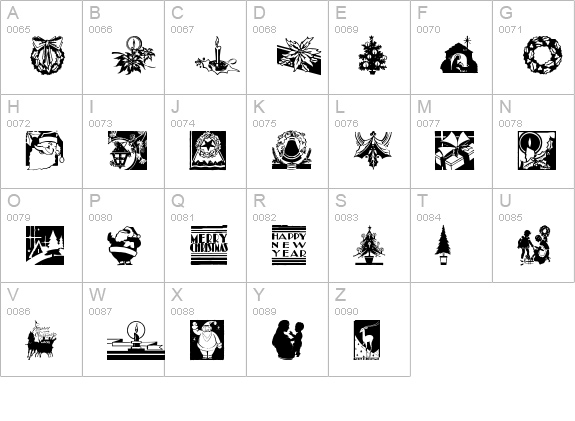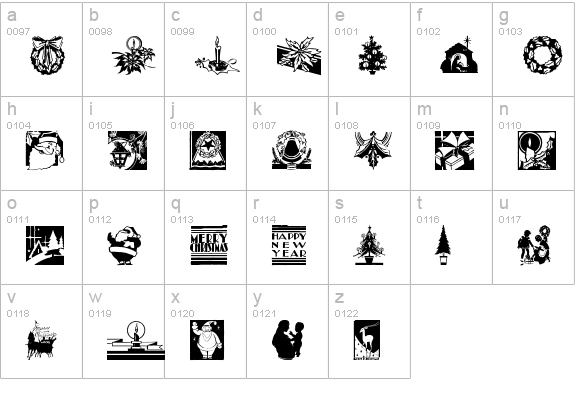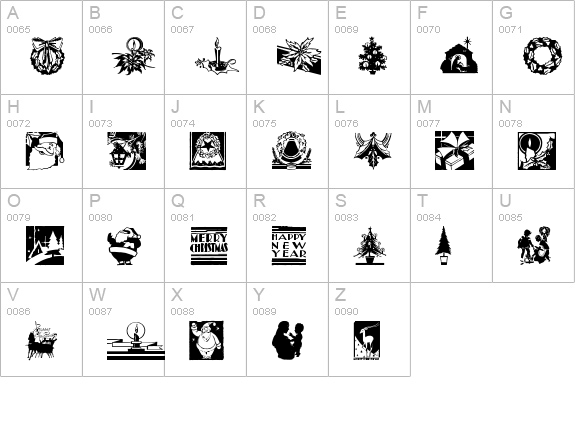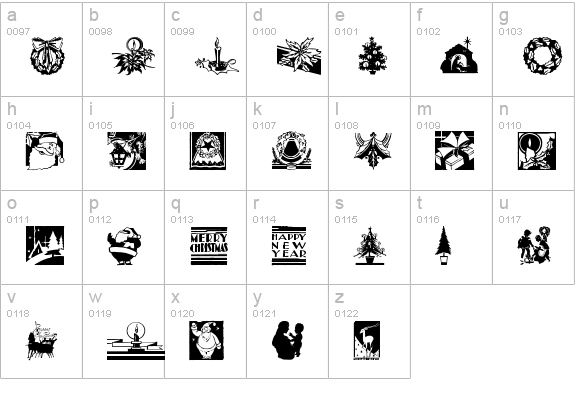
Cobb Shinn Christmas Cuts Font Details
Introducing the exquisite Cobb Shinn Christmas Cuts font, a whimsical and festive typeface perfect for all your holiday design needs. This unique font features charming Christmas-themed illustrations incorporated into each letter, adding a touch of cheer and nostalgia to your projects. The intricate details and playful style of Cobb Shinn Christmas Cuts make it a standout choice for greeting cards, invitations, posters, and more. Best of all, Cobb Shinn Christmas Cuts is available as a free download at FontsMarket.com, allowing you to easily add a touch of Christmas magic to your designs without breaking the bank. Whether you're creating a holiday-themed project or simply looking to infuse some festive spirit into your work, this delightful font is sure to inspire creativity and joy. Download Cobb Shinn Christmas Cuts today and spread the holiday cheer with every letter you type!